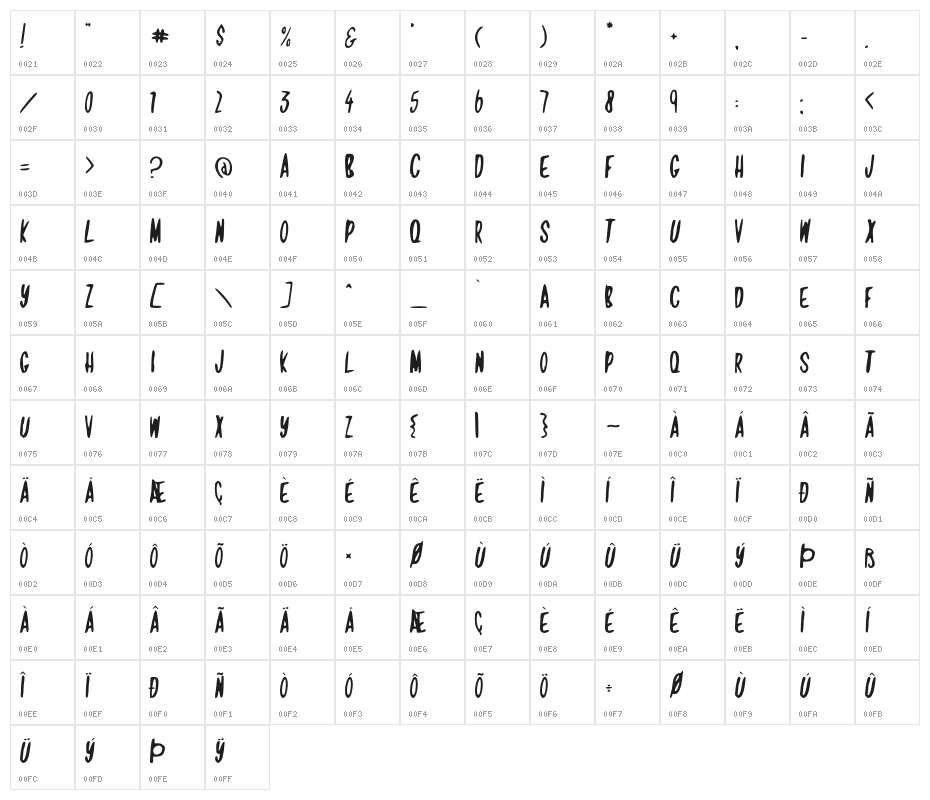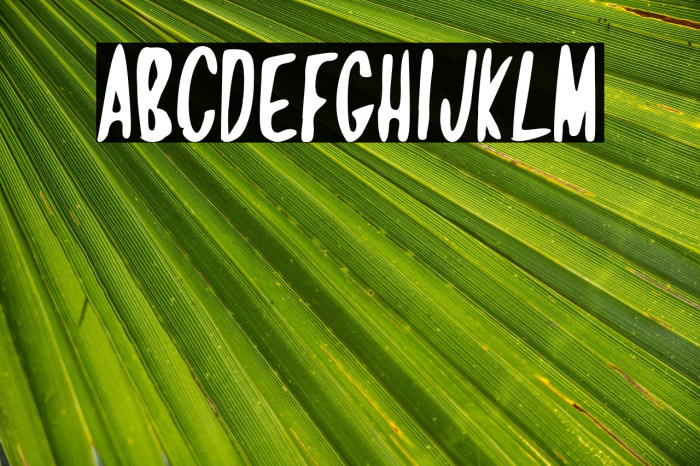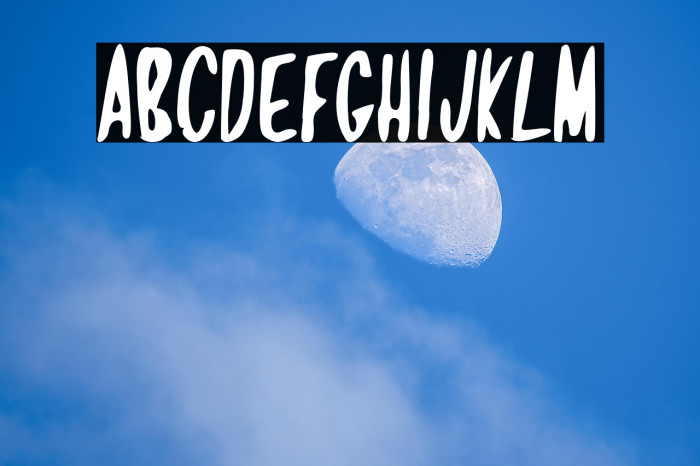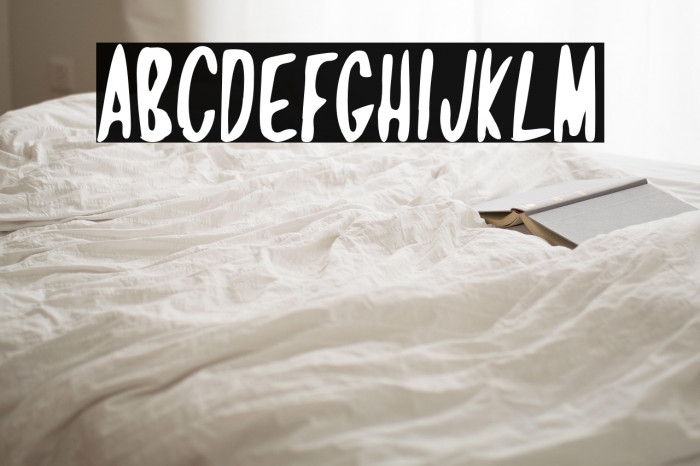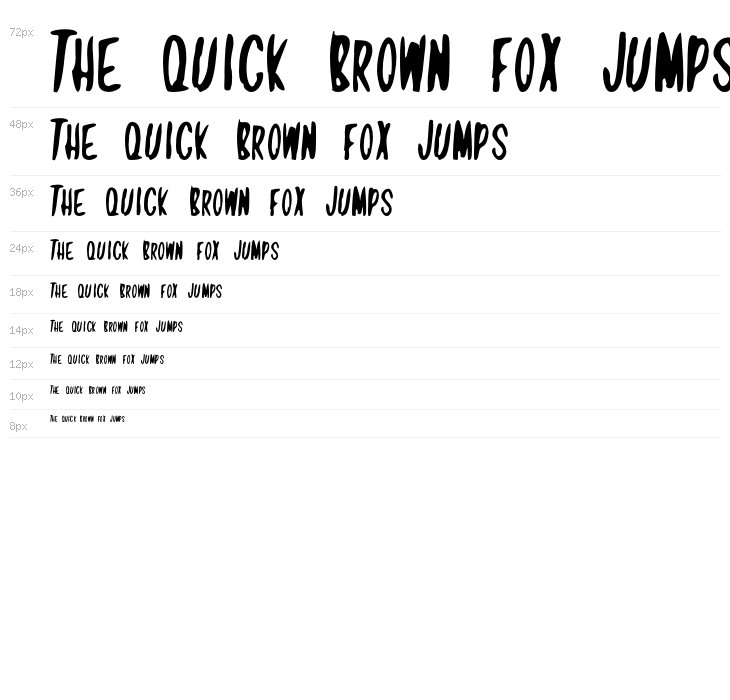
Jamaican Crow Font
Jamaican Crow Description
This font features a bold and expressive style with a hand-drawn appearance. The letters are slightly irregular, giving it a playful and dynamic feel. The strokes are thick and rounded, contributing to its boldness and making it highly visible. The uppercase and lowercase letters maintain a consistent style, with a slight slant that adds to its casual and informal character. The numbers and special characters follow the same design, ensuring uniformity across all glyphs. This font is ideal for projects that require a lively and energetic touch.
| Proposed Projects | Ideal for posters, branding, social media graphics, and any project needing a lively, informal touch. |